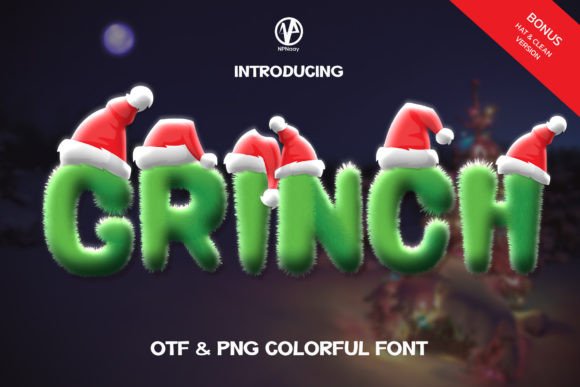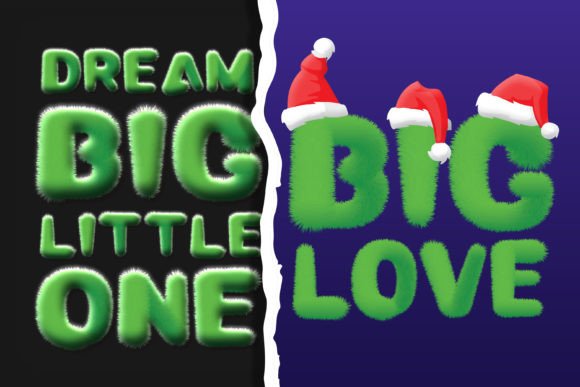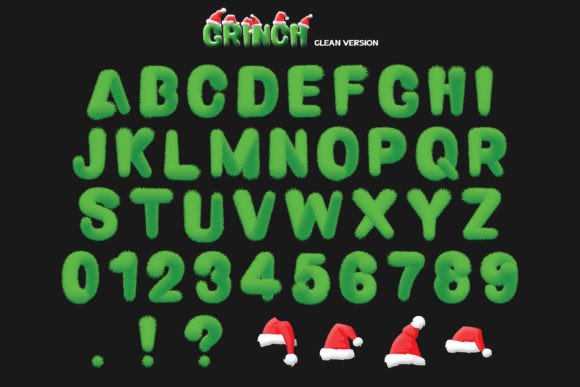
Grinch Font
Grinch is a fun and quirky color font perfect for use on cheerful topics. Very suitable for children’s themed designs, Christmas, especially when combined with bright colors.